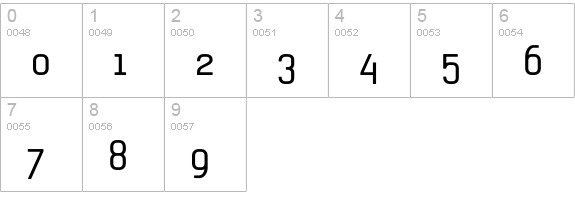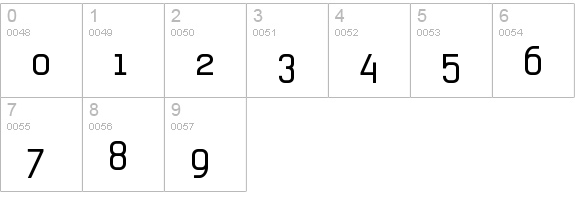
BetaSemi-Norm Font Details
Introducing BetaSemi-Norm font, a versatile and modern typeface that is perfect for a wide range of design projects. This elegant font features clean lines and a semi-bold weight, making it ideal for both headers and body text. With its contemporary yet timeless design, BetaSemi-Norm font brings a touch of sophistication to any project. What sets BetaSemi-Norm font apart is that it is available for free download at FontsMarket.com. This means that you can easily add this stylish font to your collection without having to worry about any additional costs. Whether you're working on a branding project, website design, or any other creative endeavor, BetaSemi-Norm font is sure to elevate your work with its sleek and professional appearance. Don't miss out on the opportunity to enhance your designs with BetaSemi-Norm font. Download it for free today and start creating stunning visuals that make a lasting impression.